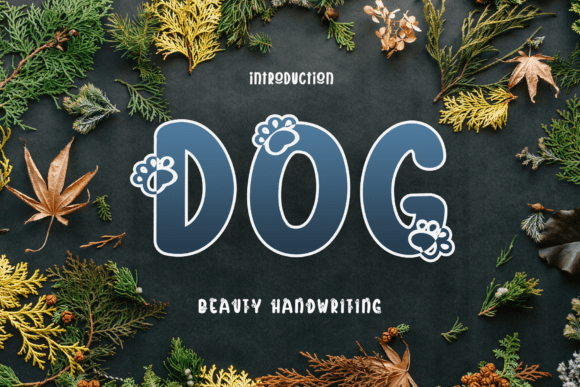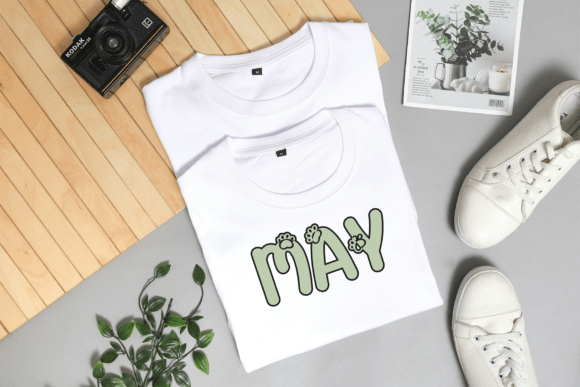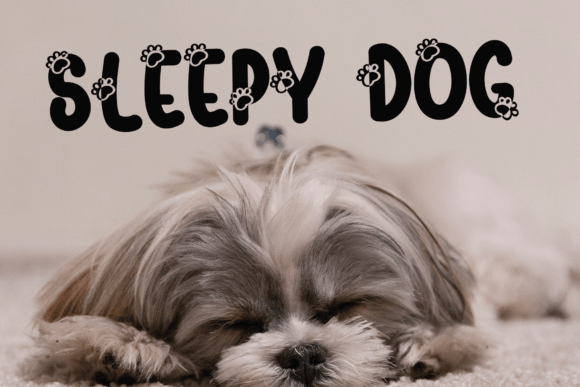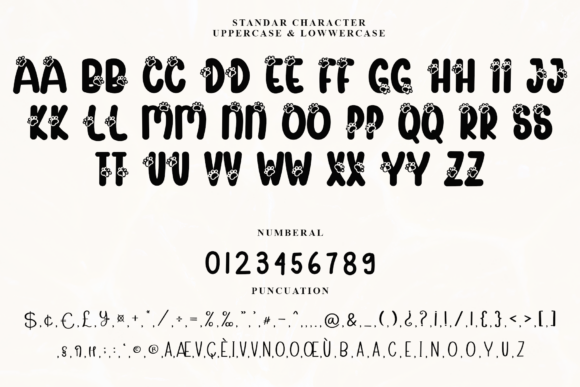
Dog Font
About the Dog Font
Elevate your designs with Dog Font, a font that combines sophistication with readability. Dog is a fun and bold display font inspired by furry friends! With chunky letterforms and adorable paw print accents, this font is ideal for pet branding, kids’ books, animal rescue campaigns, or playful logos. Add a tail-wagging touch of cuteness to any project!
Dog Font’s playful, chunky style makes it perfect for headlines, short slogans, and logos where a bold, friendly aesthetic is desired. It works exceptionally well in children’s book titles, pet-related branding, and packaging for playful products. However, its bold weight and unique character make it unsuitable for body text or long paragraphs; legibility would suffer. Avoid using it in UI contexts requiring high readability.
To balance Dog Font’s playful energy, pair it with a clean sans-serif like Open Sans for body text or a more elegant serif like Merriweather for a sophisticated contrast. For a more whimsical feel, consider pairing it with a handwritten script font, but ensure the script is legible and doesn’t compete visually with Dog Font’s strong presence.
The font’s overall personality is best described as friendly and bold, conveying a sense of fun and approachability. It’s ideal for projects targeting a younger demographic or brands emphasizing playfulness and approachability.
Dog Font Usage Examples
Dog Font Example